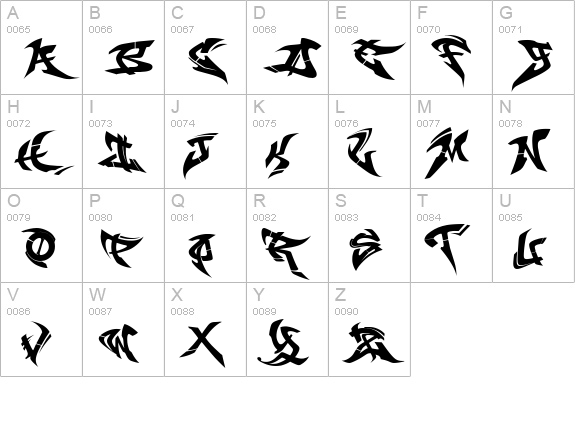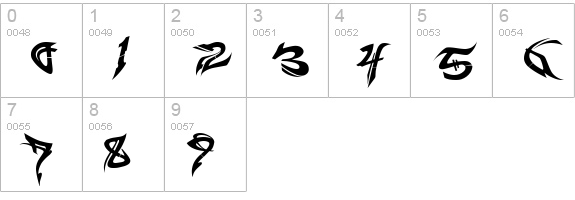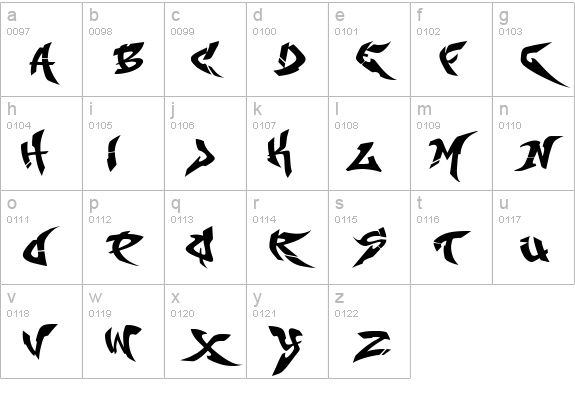
RaseOne Fill Font Details
Introducing RaseOne Fill, a dynamic and versatile typeface that adds a touch of urban edge to any design project. This font is the perfect blend of boldness and creativity, making it a must-have for graphic designers, artists, and typographers alike. RaseOne Fill is characterized by its eye-catching and expressive letterforms, inspired by graffiti and street art culture. Each letter exudes a sense of energy and movement, capturing the rebellious spirit of the streets. With its thick strokes and intricate details, this font commands attention and demands to be noticed. What sets RaseOne Fill apart is not just its striking aesthetic, but also its versatility. This font is suitable for a wide range of design applications, from logos and branding to posters, advertisements, and social media graphics. It adds a contemporary and urban flair to any project, infusing it with an edgy and modern vibe. One of the best features of RaseOne Fill is that it is freely available to download at FontsMarket.com. This means that designers and creatives can easily access this font without any hassle. Whether you're a professional or a hobbyist, this font provides endless possibilities for unleashing your creativity. With RaseOne Fill, you can make a bold statement and leave a lasting impression. Its unique and expressive style will captivate your audience and elevate your designs to new heights. So why wait? Download RaseOne Fill today and let your creativity run wild.